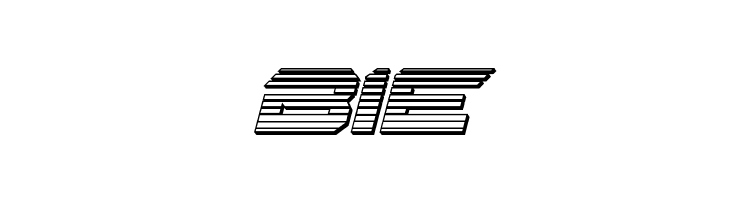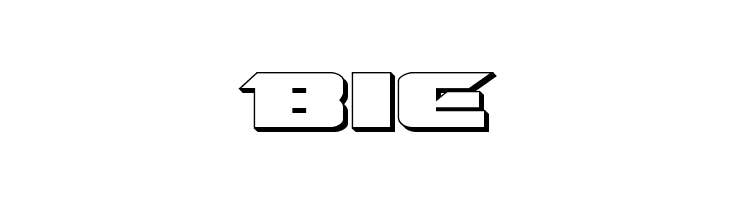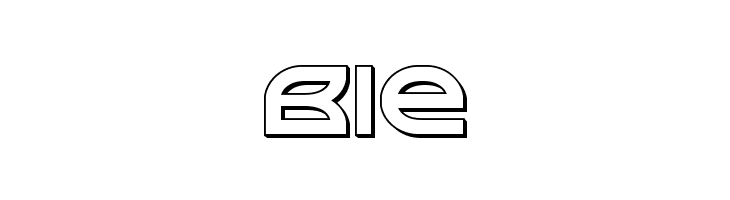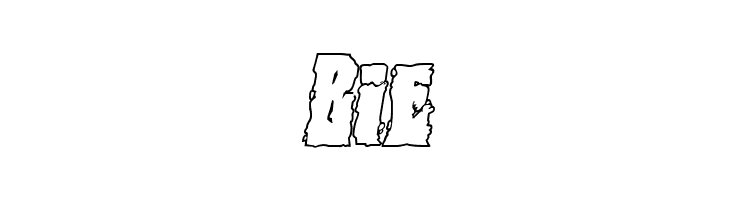
A bold, chrome-like italic font with a futuristic, layered design.
A bold, geometric outline font with sharp angles and consistent stroke width.
A bold, geometric outline font with an italic slant, offering a modern and dynamic look.
A bold, 3D geometric font with a futuristic and industrial look.
A futuristic, geometric font with outlined, hollow characters.
A bold, rugged outline font with jagged edges and a textured appearance.
A bold, 3D futuristic font with angular, geometric shapes.
A bold, 3D italic font with outlined characters and a dynamic style.
A bold, geometric font with a shadow effect for a modern, three-dimensional look.
A bold, geometric outline font with a modern, industrial style.